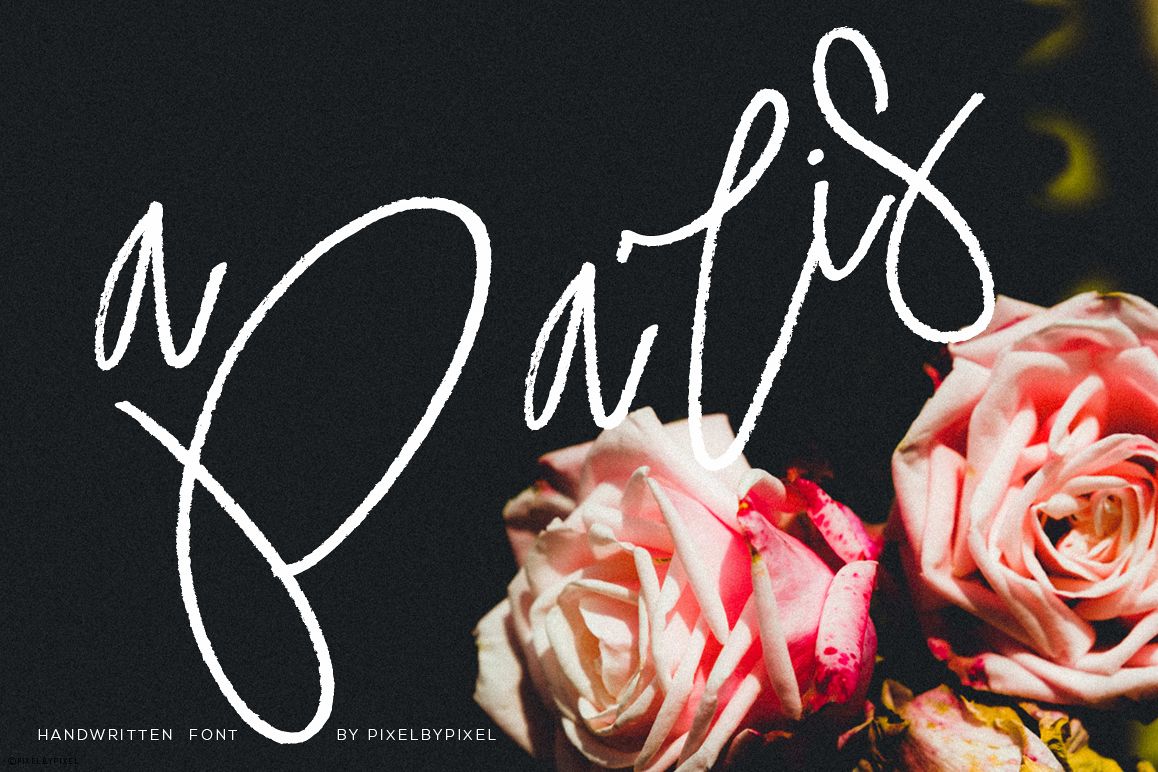
A Paris Handwritten Font
AParis
A simple, yet
super detailed font that keeps each handwritten mark and stroke and
gives that feeling that is freshly written! Looks great with quotes!